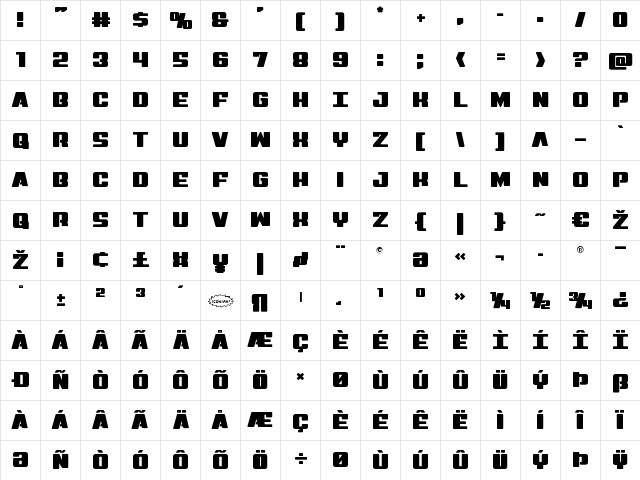
Virgin Hybrid Straight Regular
Design Context for Virgin Hybrid Straight Typeface
Virgin Hybrid Straight is a composed and adaptable typeface that performs quietly and consistently across a wide range of design contexts.